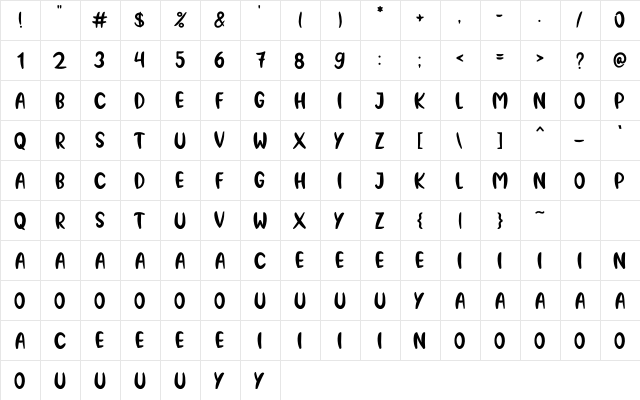
HALLOWEN HAUNTED Regular
| Foundry | Andriyanto adi utomo |
| Designer | Andriyanto adi utomo |
Design Context for HALLOWEN HAUNTED Typeface
HALLOWEN HAUNTED is a composed and adaptable typeface that performs quietly and consistently across a wide range of design contexts.